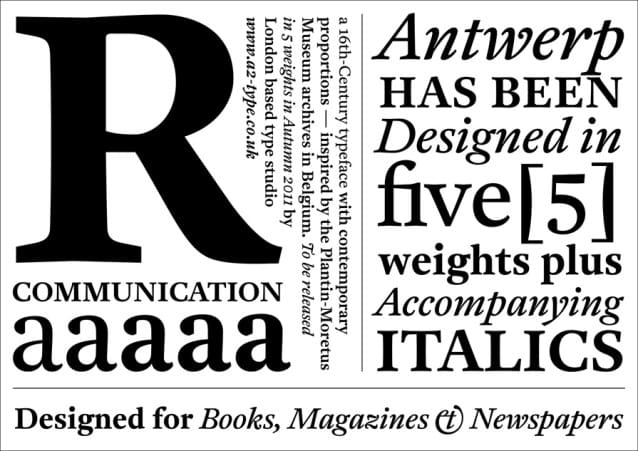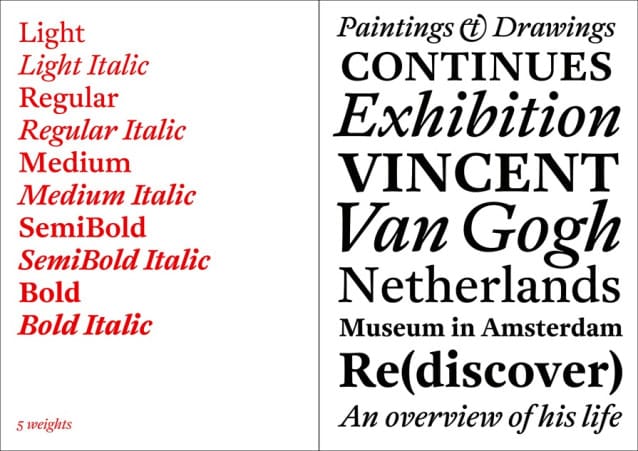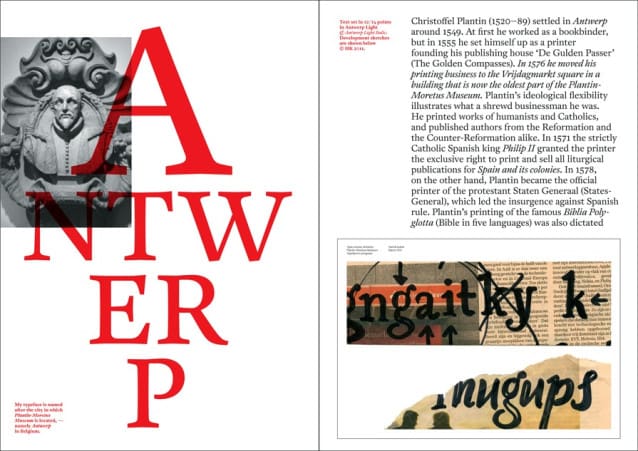
A2 Antwerp Font Family
A2 Antwerp Font Family is inspired by typefaces from the sixteenth century and more directly by the collection of type specimens held in the archive at the Plantin-Moretus Museum in Antwerp, Belgium. Antwerp is an elegant, versatile text face inspired by the past but designed for use in today’s newspapers, books, and magazines.